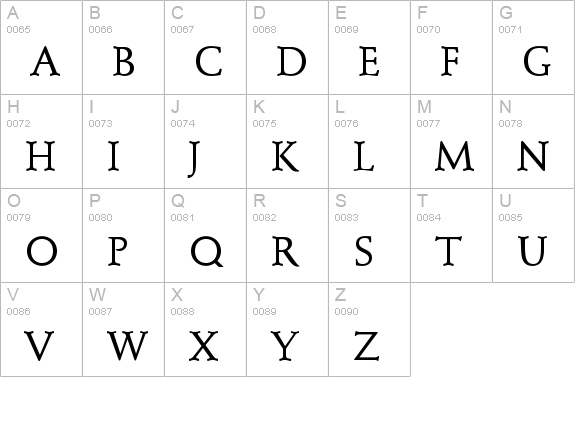
Stempel Schneidler Std Medium is a balanced, medium-weight variant in the Stempel typeface family \xE2\x80\x94 well suited to sub-headlines, navigation, and balanced editorial work.
Stempel Schneidler Std Medium is a timeless and classic font that exudes sophistication and elegance. Its medium weight strikes the perfect balance between boldness and readability, making it an ideal choice for various design projects. The sharp serifs and clean lines give this font a sense of professionalism and refinement, making it a versatile option for both print and digital media. What makes Stempel Schneidler Std Medium even more attractive is that it is available for free download at FontsMarket.com. Now, you can easily access this premium font without any cost, allowing you to elevate your designs without breaking the bank. Whether you're designing a logo, creating a brochure, or working on a website, Stempel Schneidler Std Medium is sure to bring a touch of sophistication to your projects. Download it today and see the difference it can make in your design work!